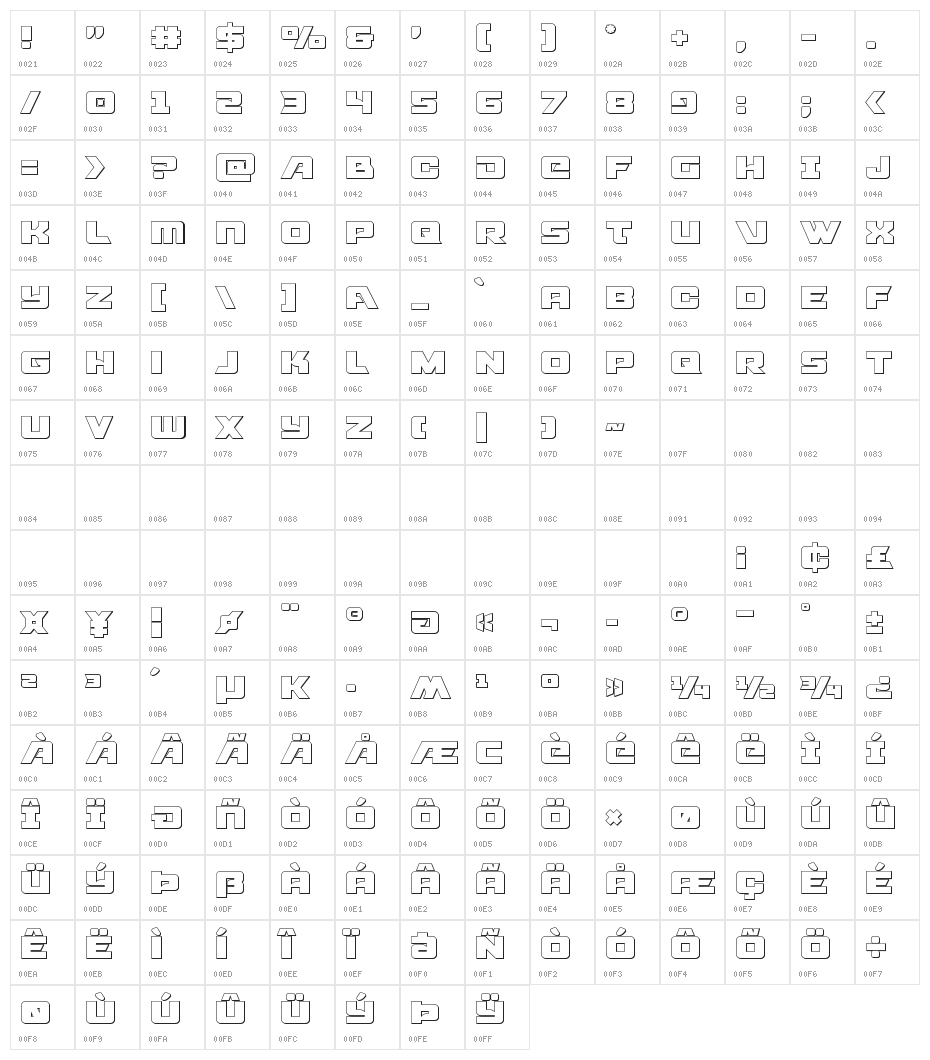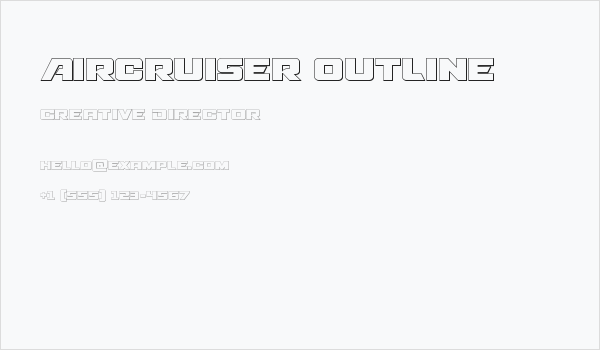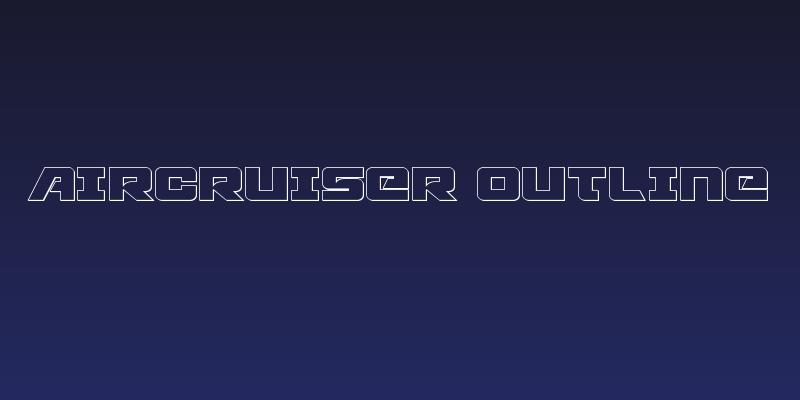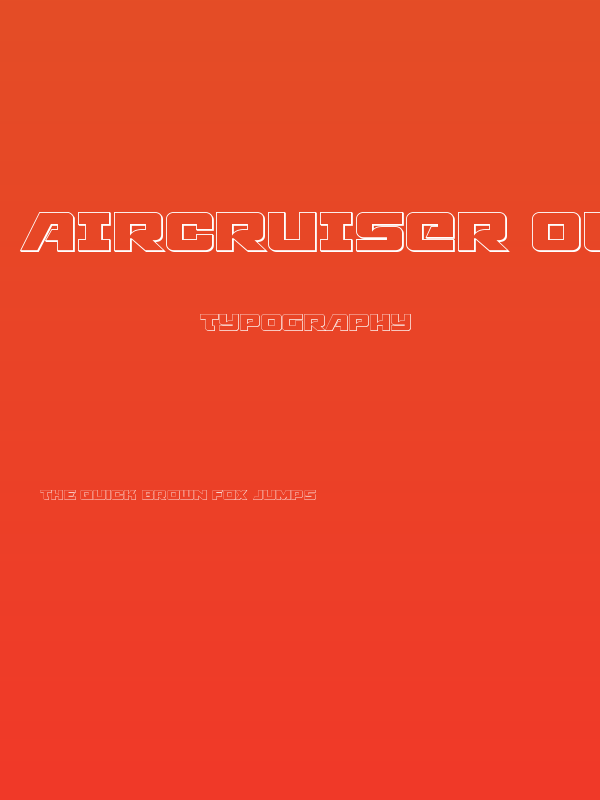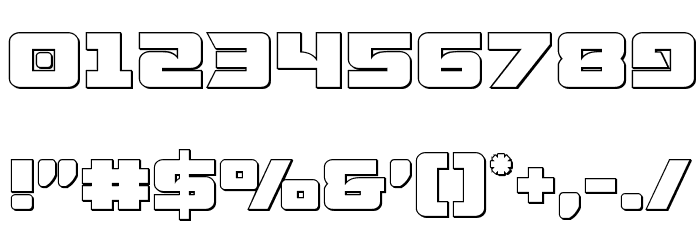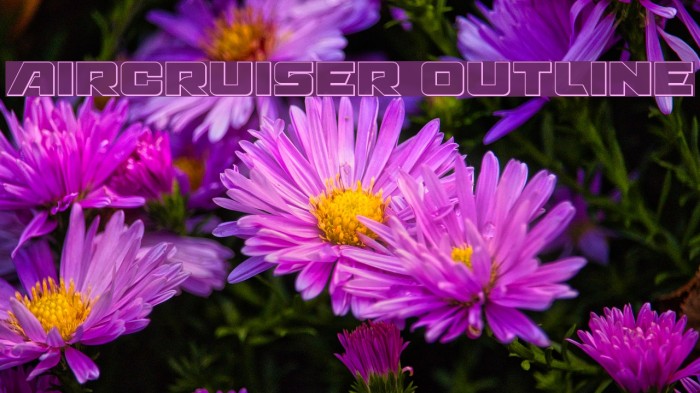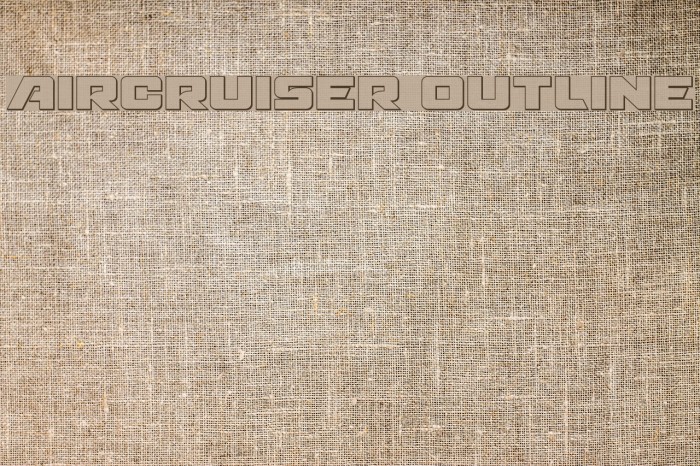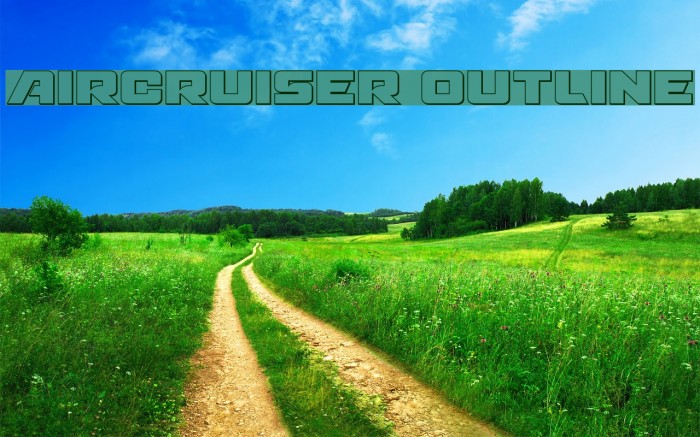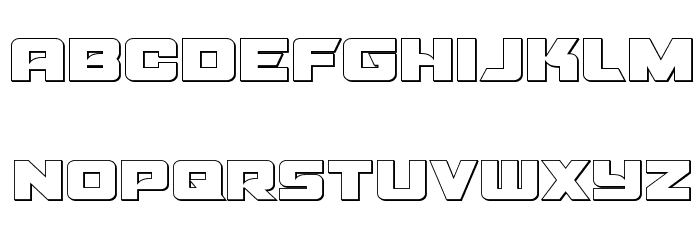
Aircruiser Outline Font
Aircruiser Outline Description
This font features a bold, geometric outline style with a futuristic and modern appearance. The characters are constructed with sharp angles and straight lines, creating a sense of precision and clarity. The uppercase letters are uniform in height, while the numbers and special characters maintain the same angular design, ensuring consistency across all glyphs. The outline effect gives the font a unique, airy feel, making it stand out in any design. Its clean and structured form is ideal for projects that require a modern and technical aesthetic.
| Proposed Projects | Ideal for technology branding, sci-fi themed designs, posters, and digital media. |